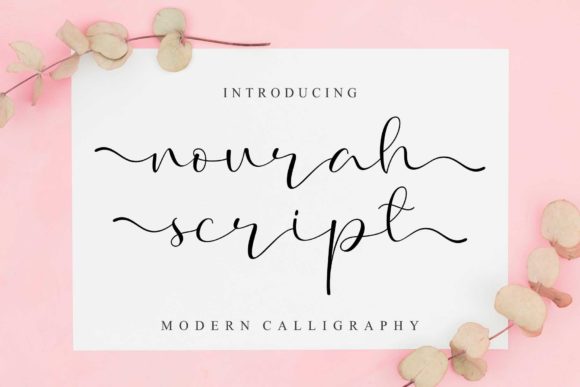
Nourah Script Font: Elevate Your Designs with Elegance and Sophistication
In the world of typography, a well-crafted font can make all the difference in creating visually stunning designs. Among the numerous fonts available, Nourah Script Font stands out for its unique blend of elegance and sophistication. This beautiful handwritten script font has been gaining popularity among designers and brands looking to add a touch of luxury to their projects. In this article, we’ll explore the features, benefits, and uses of Nourah Script Font, and why it’s an excellent choice for fashion branding, editorial designs, and more.
What Makes Nourah Script Font Special?
Nourah Script Font boasts a distinctive and captivating design, characterized by smooth curves and a unique shape in each character. This handwritten script font exudes a sense of refinement and poise, making it perfect for designs that require a touch of sophistication. The font’s flowing lines and gentle curves create a sense of movement and fluidity, adding a dynamic touch to any design.
- Unique Character Shape: Each character in Nourah Script Font has a distinct and unique shape, setting it apart from other fonts.
- Smooth Curves: The font features smooth, flowing curves that add a touch of elegance to any design.
- Handwritten Script: Nourah Script Font is a handwritten script font, giving it a personal and authentic feel.
Uses of Nourah Script Font
Nourah Script Font is an incredibly versatile font, suitable for a wide range of design projects. Here are some of the most popular uses of this beautiful font:
- Fashion Branding: Nourah Script Font is ideal for fashion branding, adding a touch of luxury and sophistication to logos, labels, and packaging.
- Editorial Designs: The font is perfect for editorial designs, such as magazine covers, articles, and advertisements, where a touch of elegance is required.
- Wedding and Event Designs: Nourah Script Font can be used to create beautiful wedding invitations, event posters, and other designs that require a touch of romance and sophistication.
- Packaging and Product Design: The font can be used for packaging and product design, adding a touch of luxury and sophistication to product labels and packaging.
Benefits of Using Nourah Script Font
Using Nourah Script Font in your designs offers numerous benefits, including:
- Elegance and Sophistication: The font adds a touch of elegance and sophistication to any design, making it perfect for luxury brands and high-end designs.
- Unique and Memorable: Nourah Script Font is unique and memorable, making it an excellent choice for brands looking to create a lasting impression.
- Versatility: The font is incredibly versatile, suitable for a wide range of design projects, from fashion branding to editorial designs.
- Easy to Read: Despite its elegant and cursive nature, Nourah Script Font is easy to read, making it perfect for body text and headlines.
Tips for Using Nourah Script Font
To get the most out of Nourah Script Font, here are some tips to keep in mind:
- Use it Sparingly: Use Nourah Script Font sparingly, as it’s best suited for headlines, titles, and accents.
- Pair it with a Sans-Serif Font: Pair Nourah Script Font with a sans-serif font for body text to create a beautiful contrast.
- Experiment with Colors: Experiment with different colors and textures to add depth and interest to your designs.
- Pay Attention to Kerning: Pay attention to kerning and tracking to ensure that the font looks elegant and refined.
Nourah Script Font is a beautiful and elegant handwritten script font that’s perfect for designs that require a touch of sophistication and luxury. Its unique character shape, smooth curves, and versatility make it an excellent choice for fashion branding, editorial designs, and more. By following the tips outlined in this article, you can get the most out of Nourah Script Font and create stunning designs that leave a lasting impression.